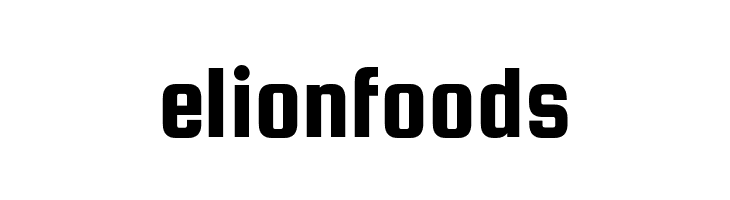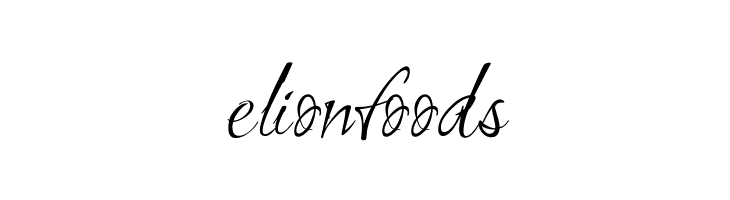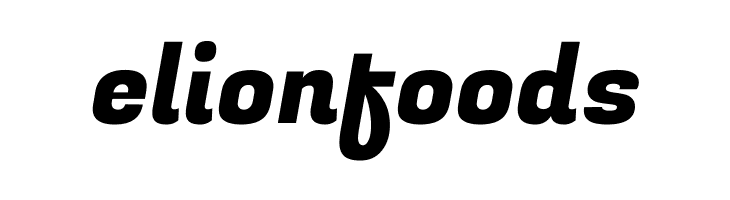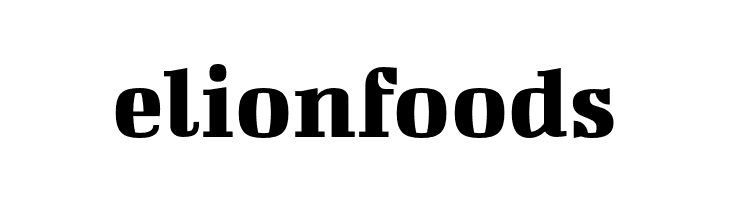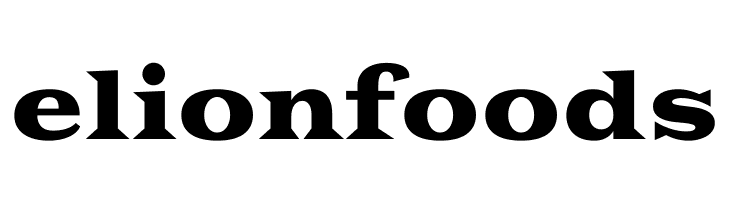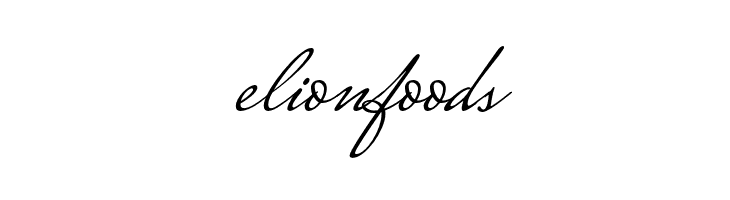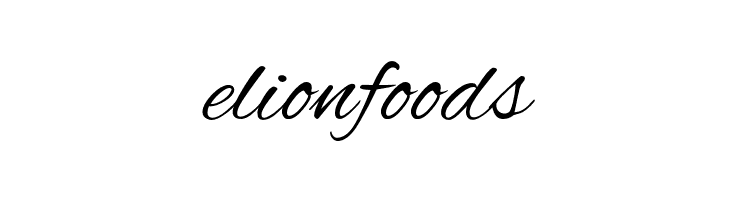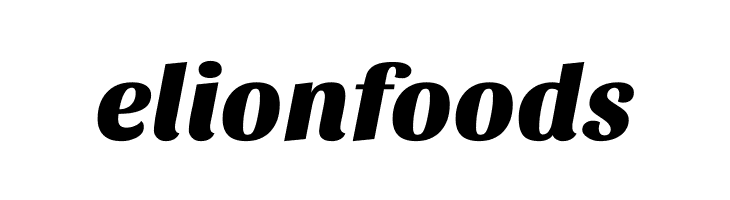
A bold, geometric font with a modern style, perfect for impactful headlines and branding.
An elegant script font with flowing, cursive strokes and intricate flourishes.
A bold, dynamic font with a modern and energetic style.
A bold, modern serif font with strong, thick strokes and a commanding presence.
A bold, strong font with thick strokes and a commanding presence.
An elegant script font with flowing, cursive letterforms and a sophisticated style.
An elegant script font with flowing, cursive strokes and ornate uppercase letters.
A classic serif font with balanced proportions and medium contrast.
A bold slab serif font with strong geometric shapes and prominent serifs.
A bold, dynamic font with a slight slant and smooth curves.